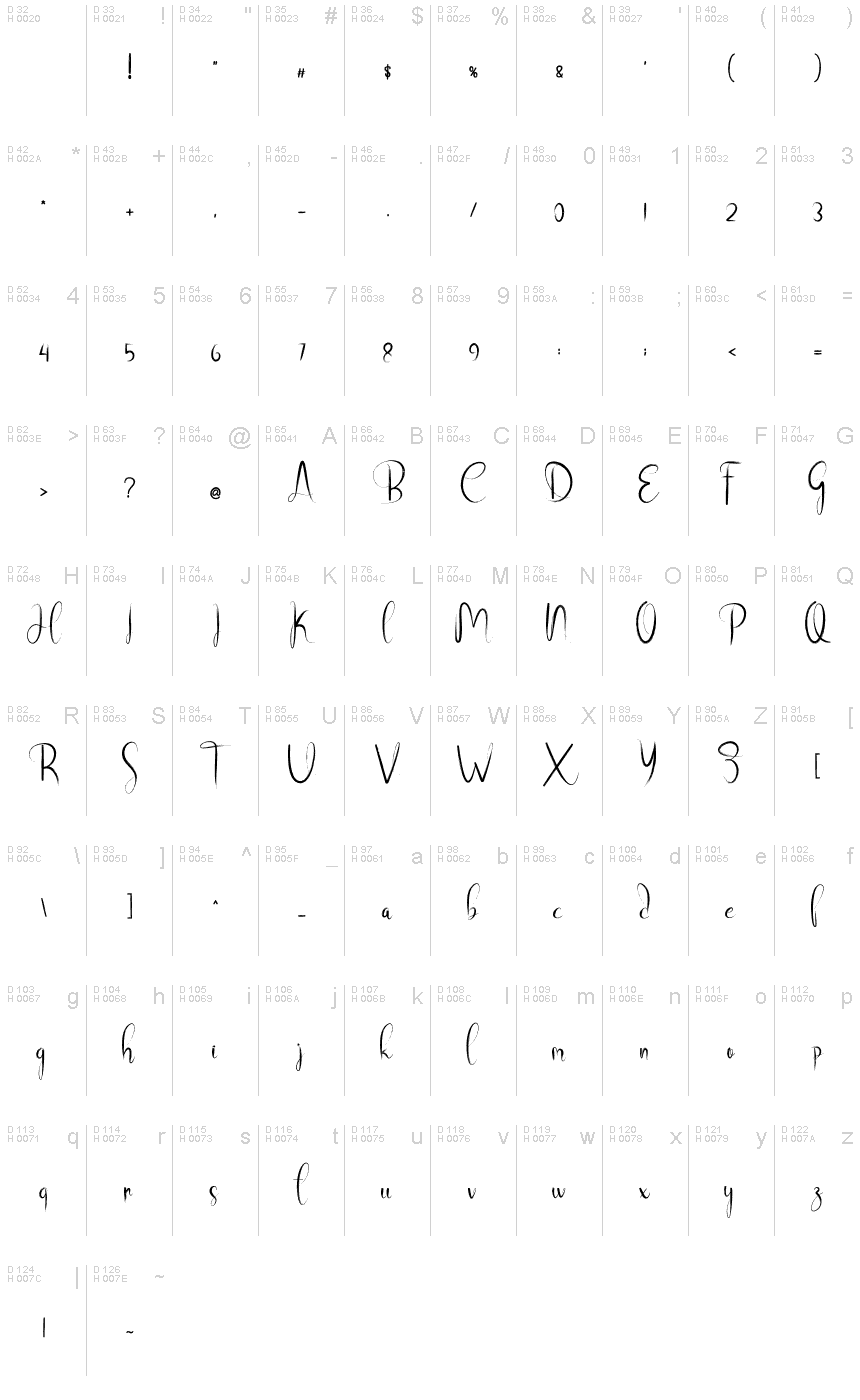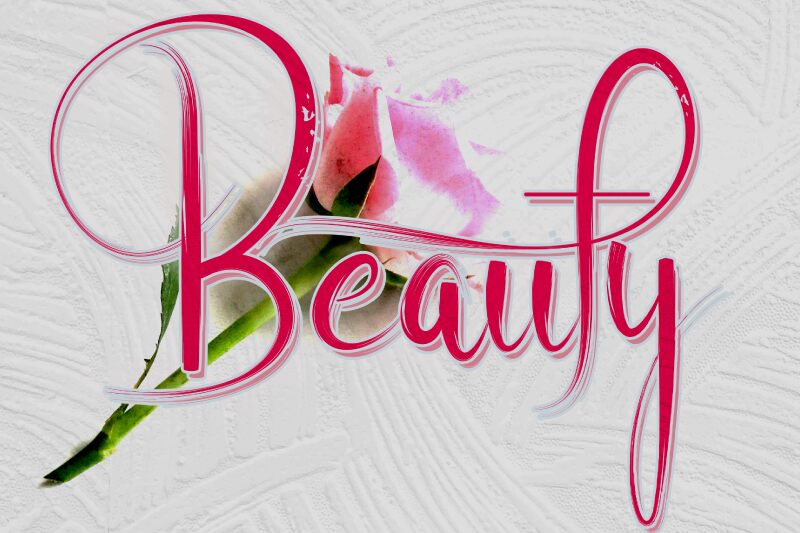
Beauty
Beauty, the stunning calligraphy font designed by Fahmi Hayat, is the perfect choice for elegant and sophisticated projects. The semi-light weight and semi-condensed width make it versatile for a range of designs, from wedding invitations to high-end branding. With its intricate curves and flourishes, Beauty adds a touch of luxury to any project. Use it for delicate logos or titles, or try it in body text for a unique twist on traditional typography. Elevate your next project with Beauty's graceful charm and timeless appeal.